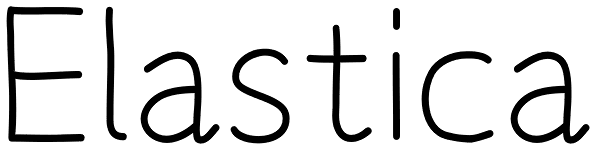
Elastica
Elastica is a new handwritten type system created by Resistenza, it is based on humanistic sans serif fonts of early 20th century. Irregular handwritten strokes that gives a D.I.Y feeling perfect to get a close sense of communication. When using all...